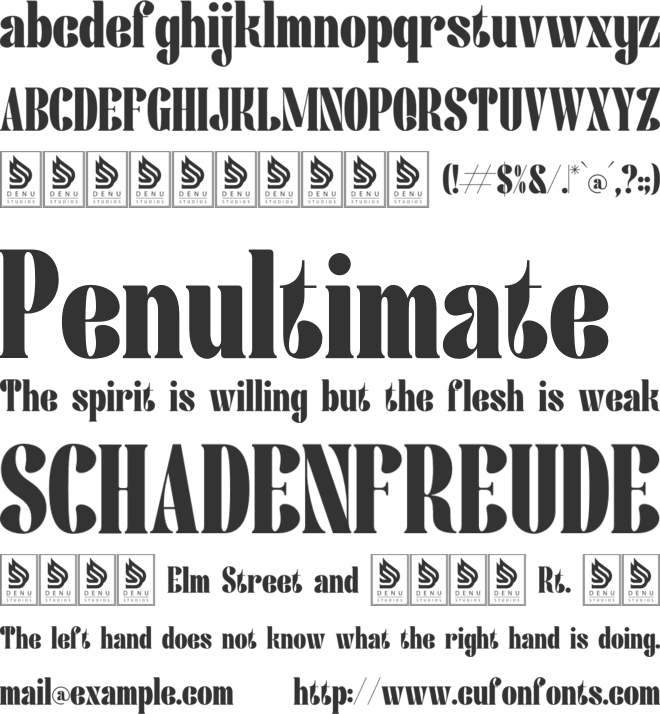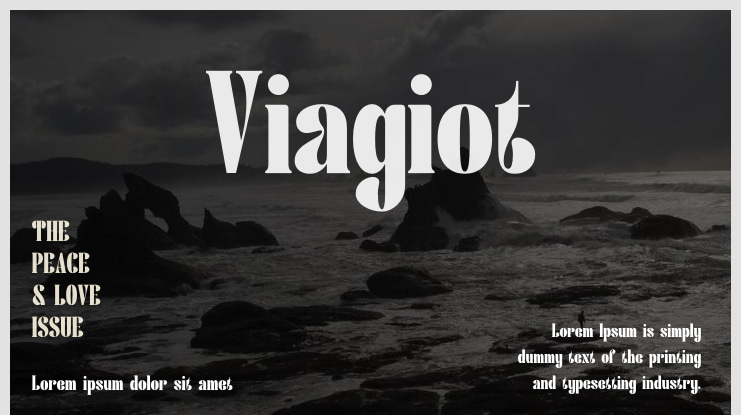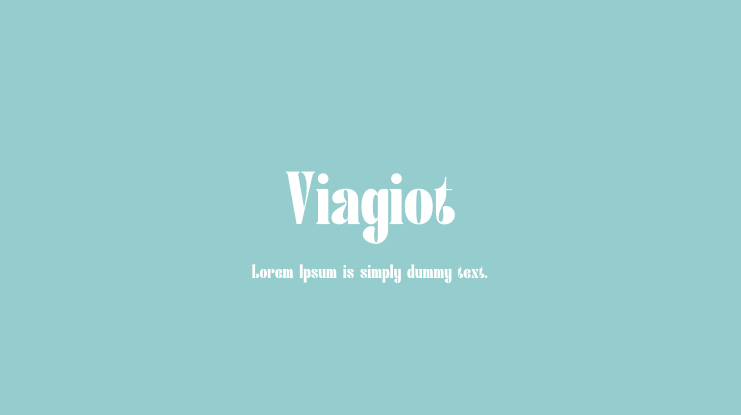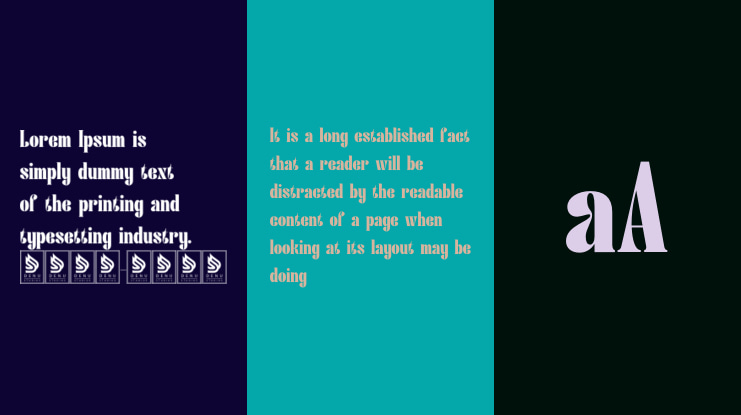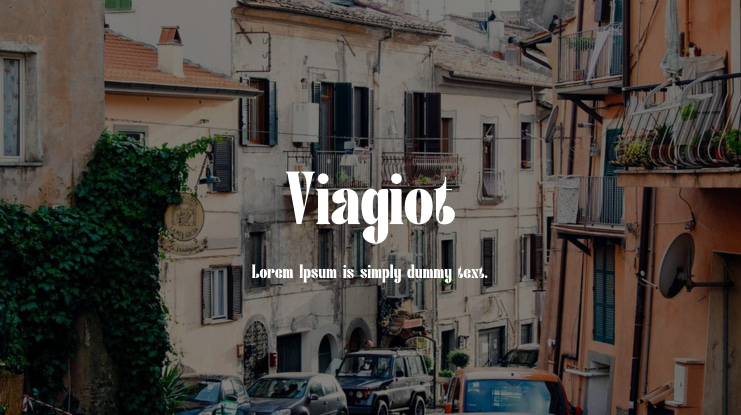
**Viagiot | Display Serif** is a versatile typeface fitting for various projects such as logos, branding designs, homeware designs, product packaging, mugs, quotes, posters, shopping bags, t-shirts, book covers, business cards, invitation cards, greeting cards, labels, photography, watermarks, special events, and all your other delightful projects that require the elegance of a Display Serif Font. **Product Usage Agreement**: